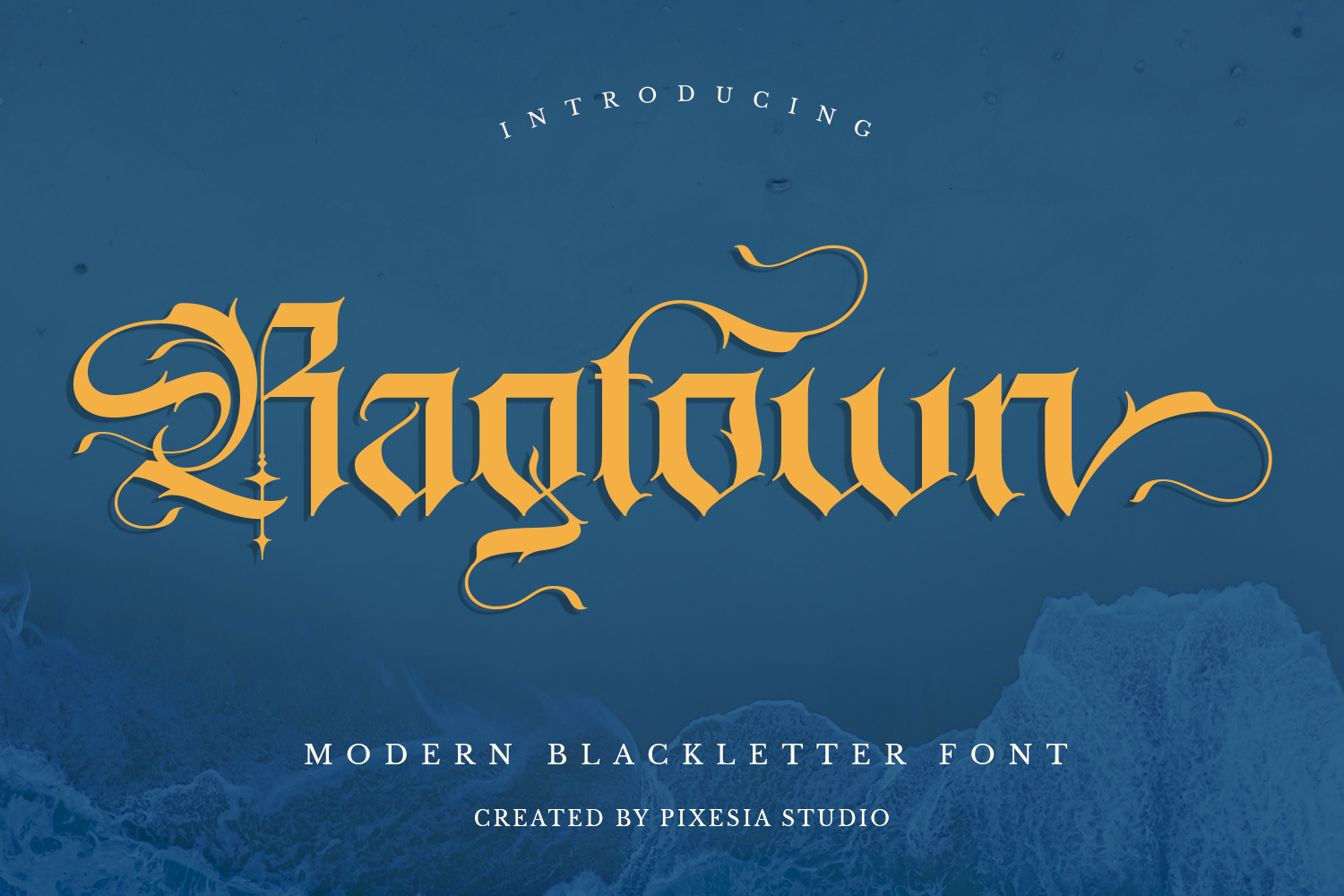
Ragtown - Modern Blackletter Font
Introducing Ragtown - Modern Blackletter Font
Ragtown is a modern blackletter font that merges traditional gothic aesthetics with contemporary design elements. With its bold and intricate letterforms, Ragtown adds character and sophistication to any project.